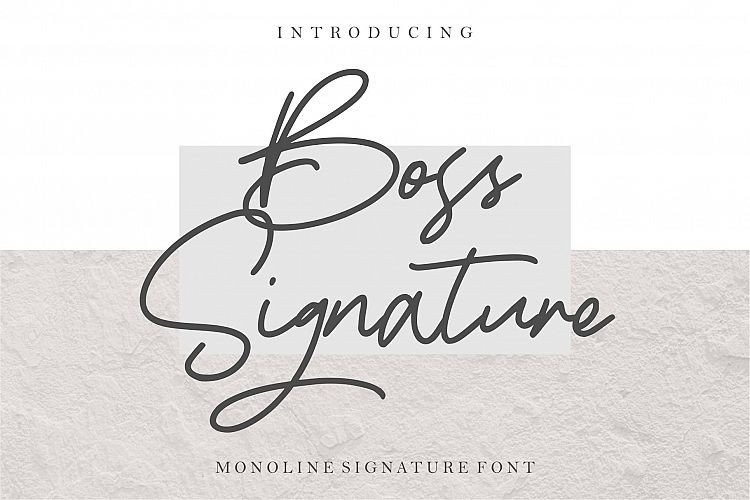
Boss Signature Font
A beautiful script font by Good Java Studio. It comes with an elegant and feminine style which is perfect to make any design stand out! Introducing Boss Font. Boss Signature font is a natural & modern handwritten font. I’ts Perfect for logo, invitation, stationery, wedding designs, social media posts, advertisements, product packaging, product designs, label, photography, watermark, special events or anything.